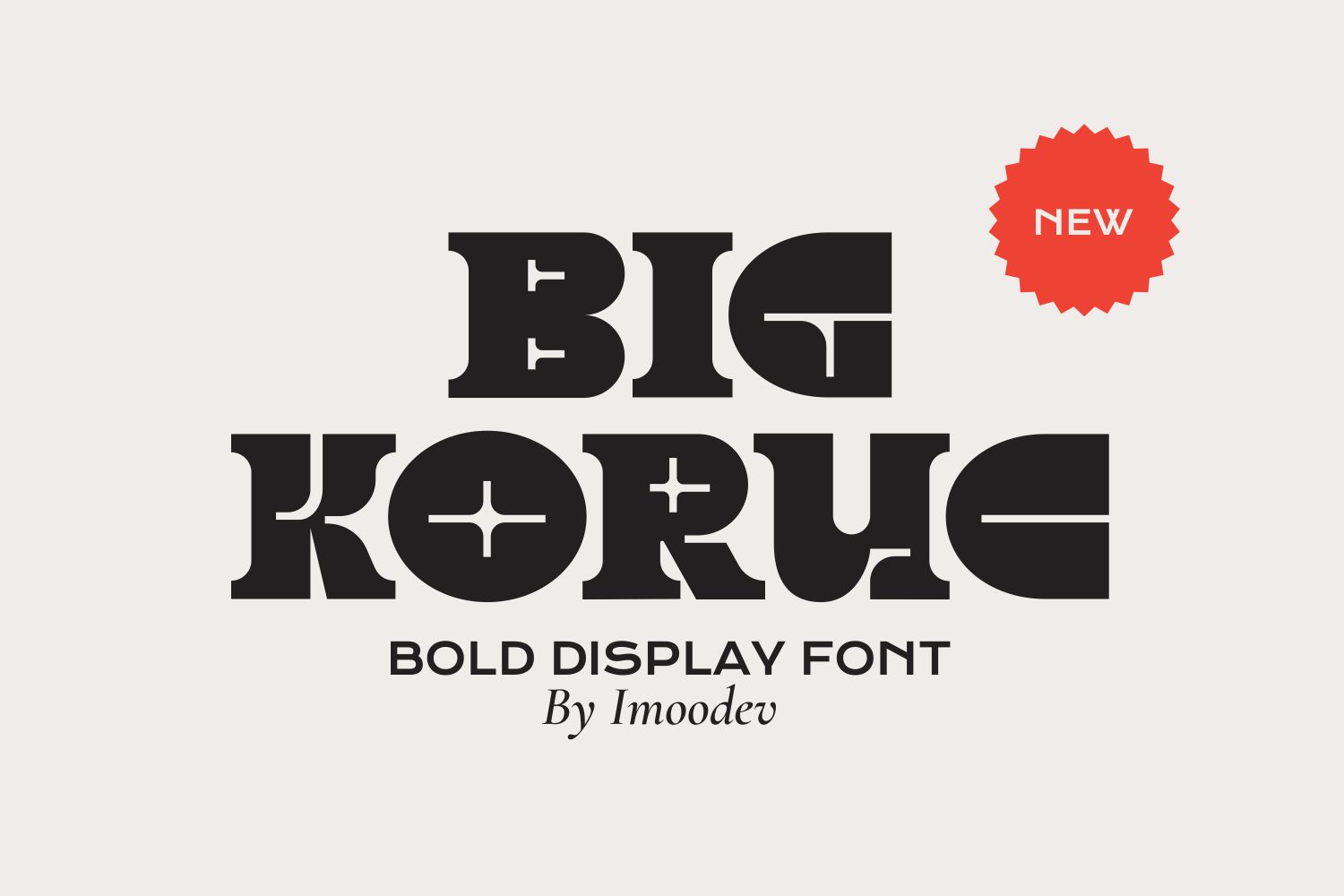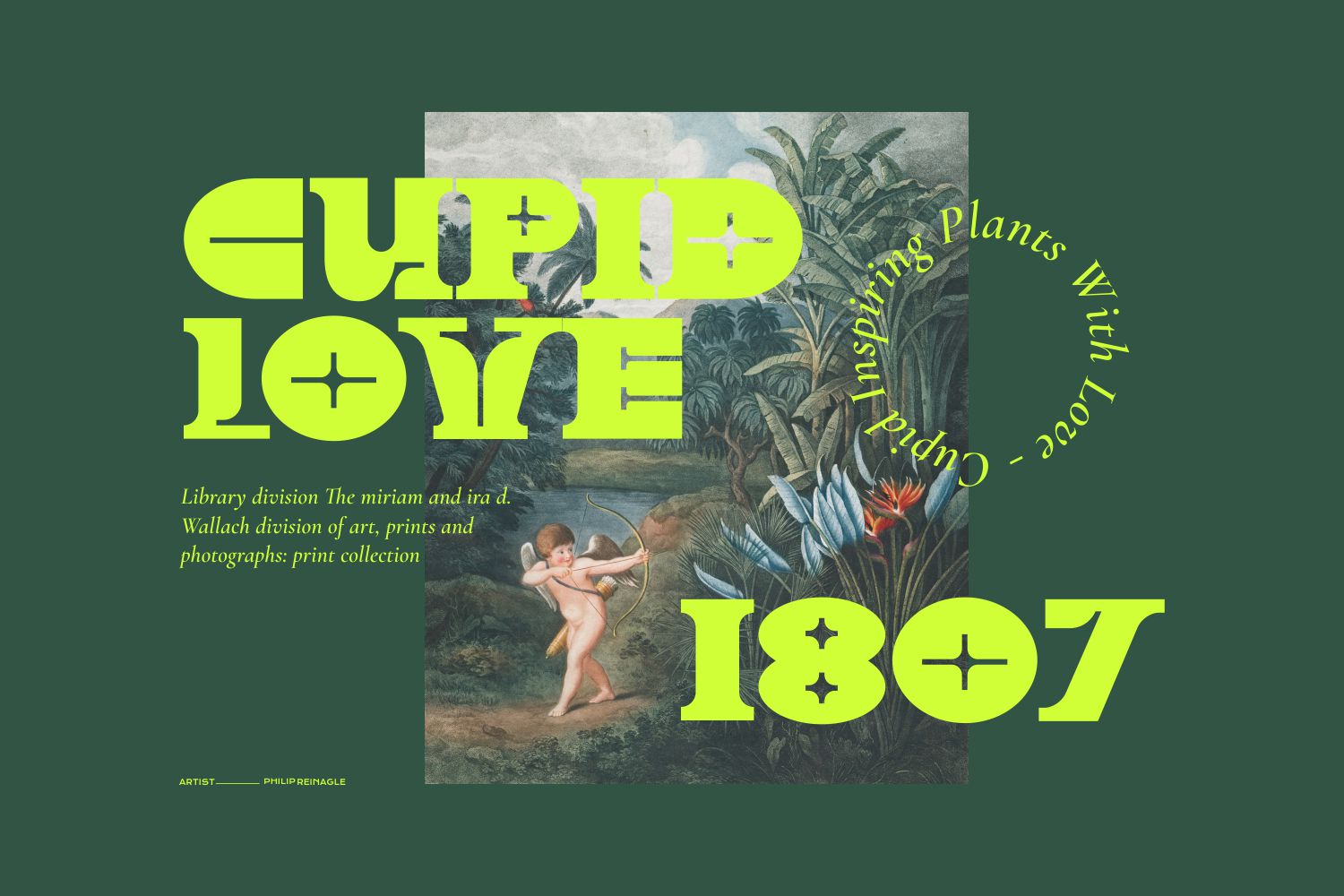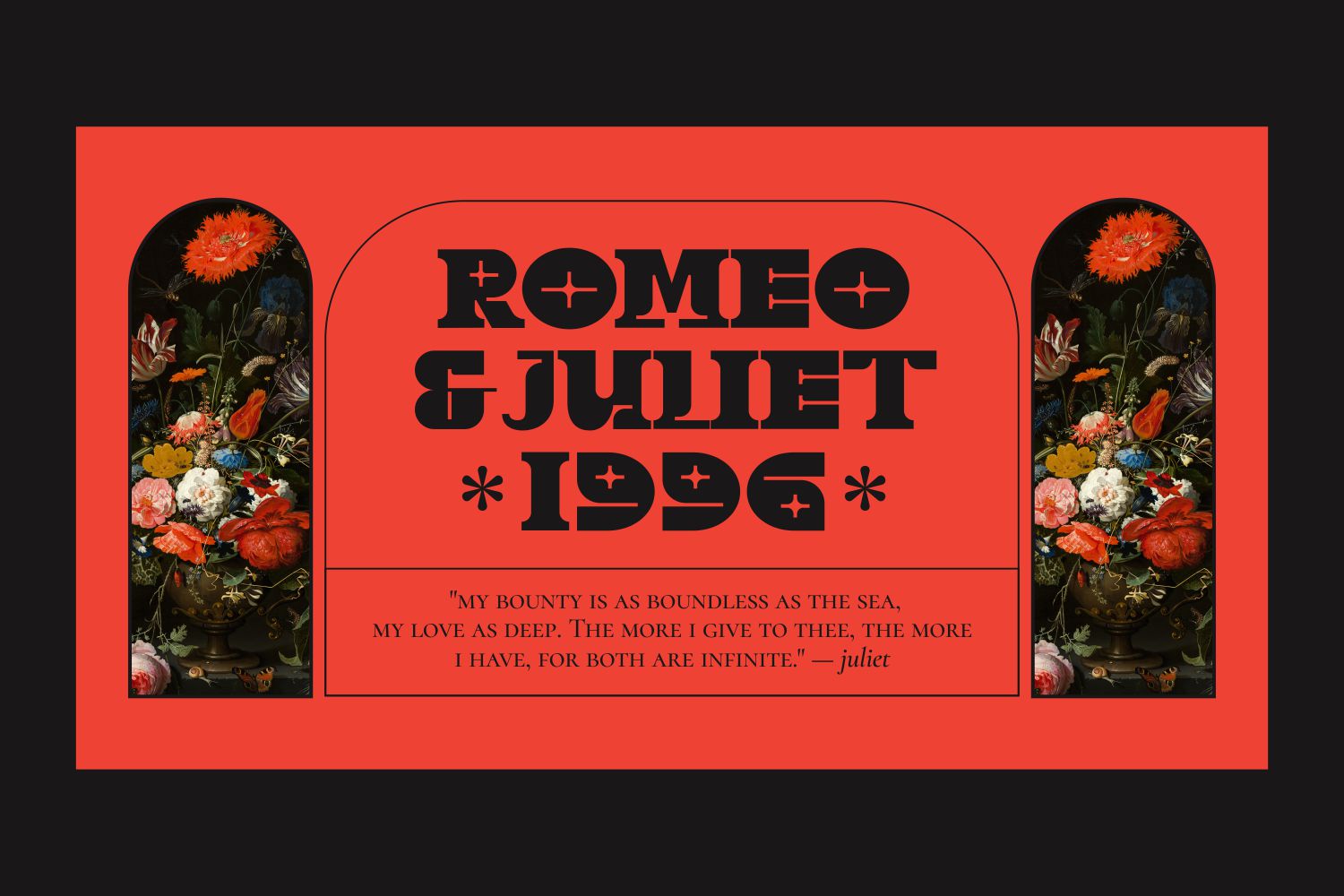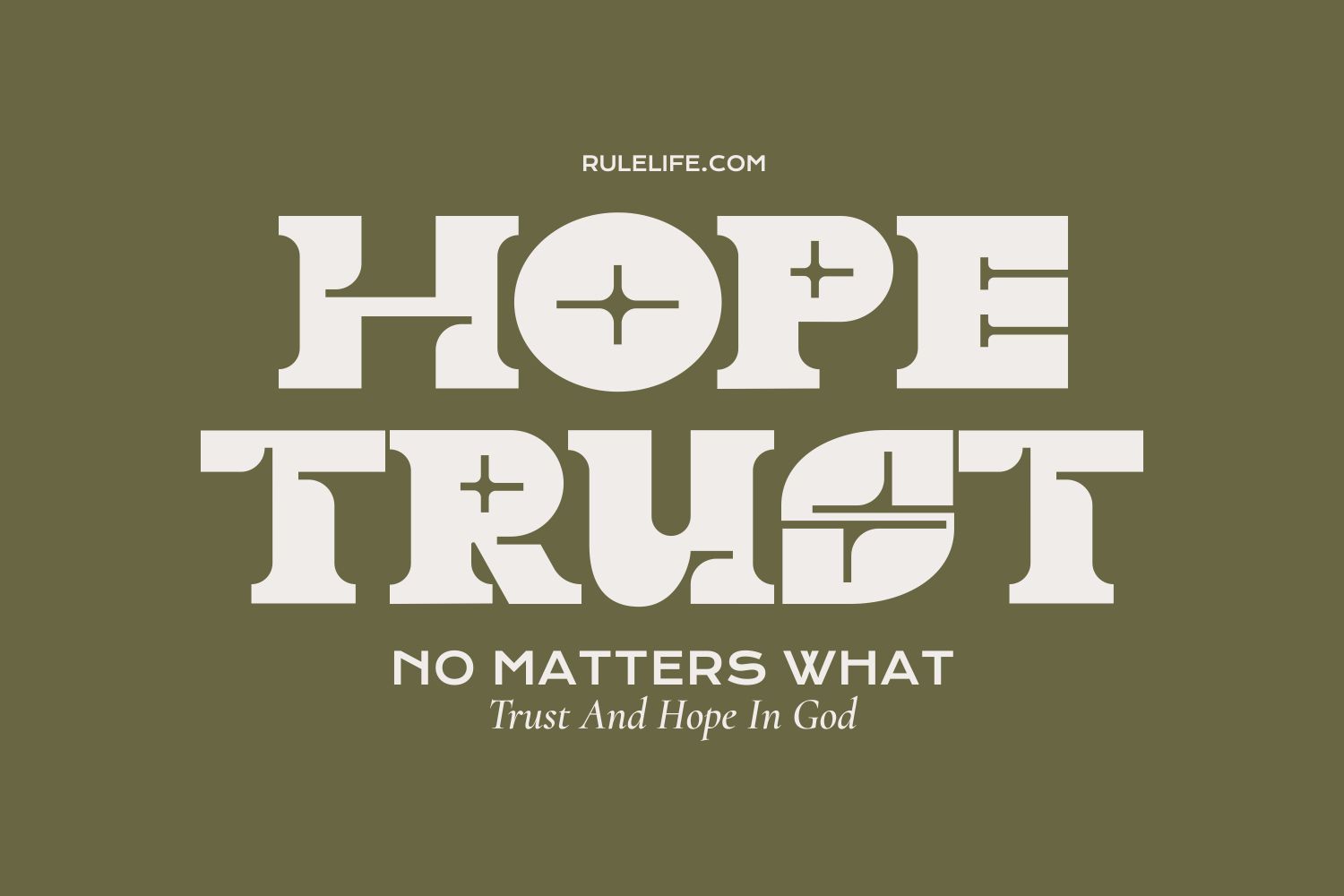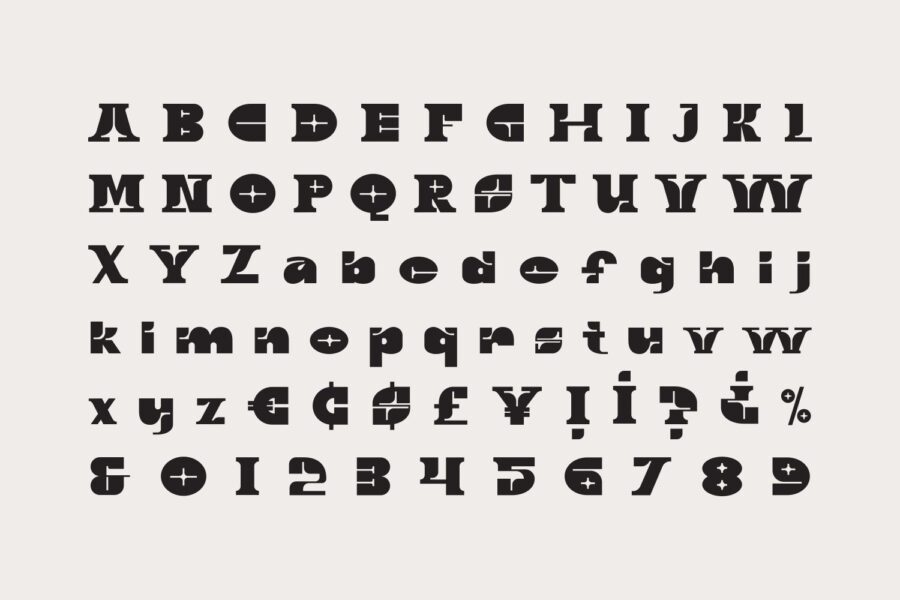
Big Koruc is a bold display font that combines strong geometric forms with experimental cutouts, creating a distinctive and powerful visual style. Its heavy weight and unique detailing make it perfect for attention-grabbing headlines, posters, and editorial layouts. With its mix of modern boldness and retro-inspired aesthetics, Big Koruc is designed to leave a memorable impression.
Crafted for versatility, Big Koruc works seamlessly in branding, album covers, apparel design, and striking social media graphics. Its sharp edges and creative negative spaces bring a sense of artistic flair, making every design project stand out with originality and confidence.
Big Koruc